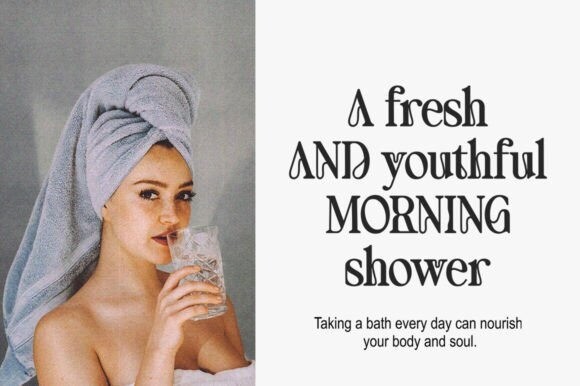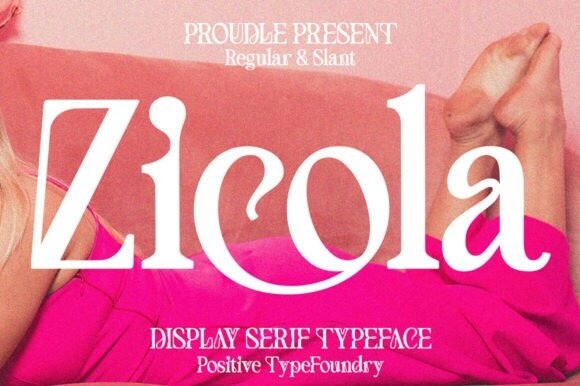
Zicola Font
Designer: positivetypefoundry
Zicola Font is an elegant-looking serif font with a modern look that is perfect for multipurpose projects. Zicola Font was inspired by the concept of romantic vibes and made it a unique yet luxurious style. This font also looks amazing and fits into any design and is highly recommended for logos, crafts, posters, books, branding, quotes, print templates, packaging, invitations, product labels, advertising, wedding projects, and more.